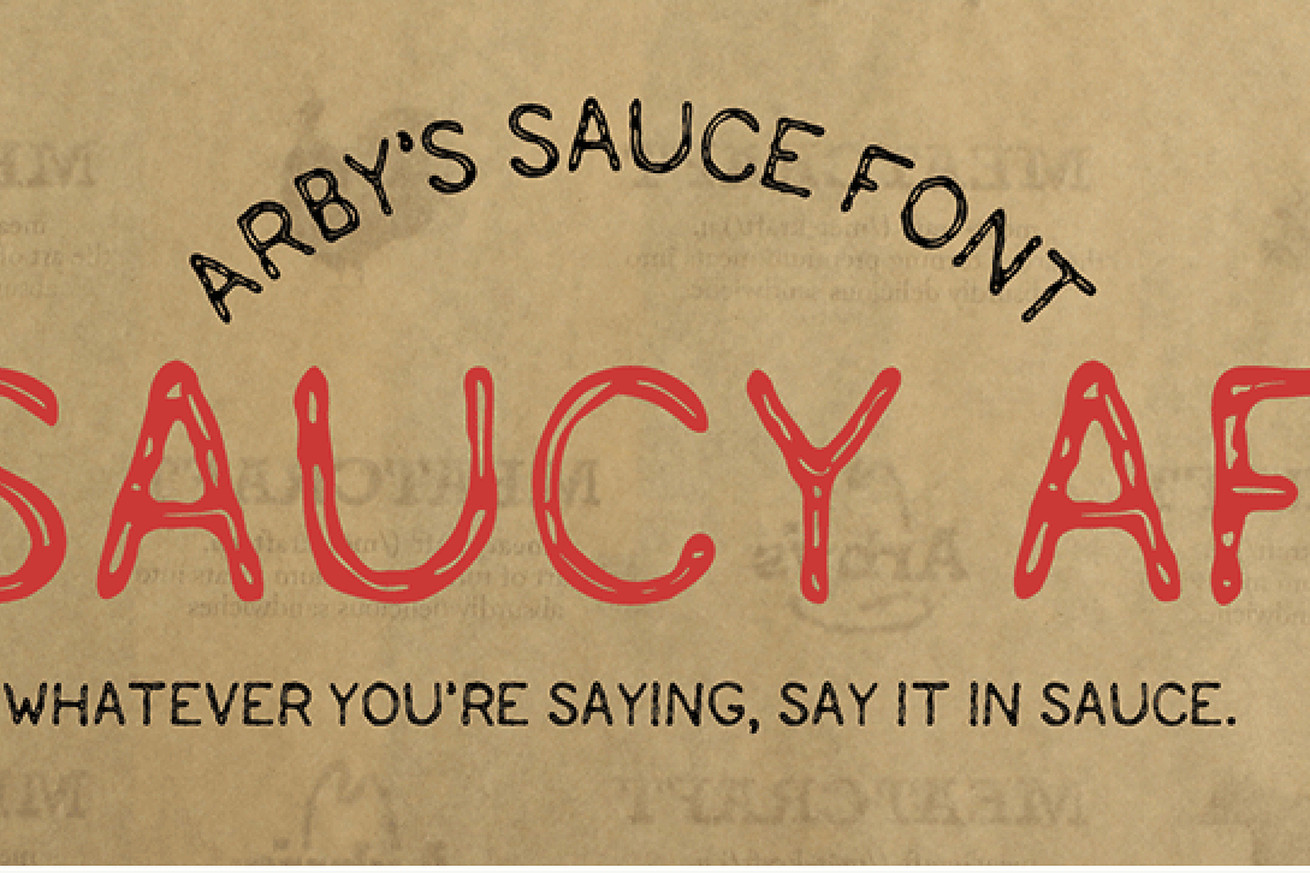
Even Arby’s has its own custom font to make fun of bespoke typefaces
Step aside Apple (San Francisco), Samsung (SamsungOne), Google (Roboto and Product Sans), Microsoft (sort of with Segoe), Netflix (Netflix Sans), Airbnb (Cereal), Intel (Intel Clear), and every other big tech company with its own bespoke custom ,” as spotted by FastCo Design.
Described as “the ink of the sandwich world,” Arby’s is positioning Saucy_AF™ as an alternative to those who lack the skills to write in sauce like the folks behind the very social media savvy Arby’s Twitter account.